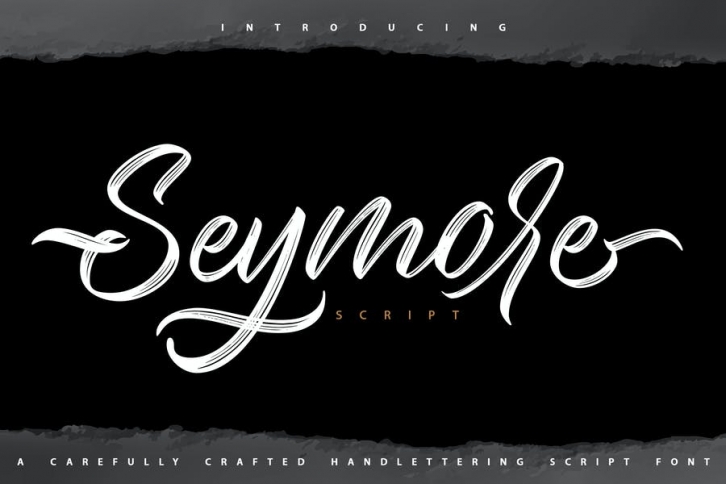
Seymore is a Brush Script typeface, perfectly suitable for creating Brands, Art, lifestyle designs such as logos, titles, and magazines, and more.
– Uppercase
– Lowercase
– Symbols & Punctuation
– Numeral
– Ligature
– Alternate
– Multilingual Support
– Stylistic Sets
– Extras